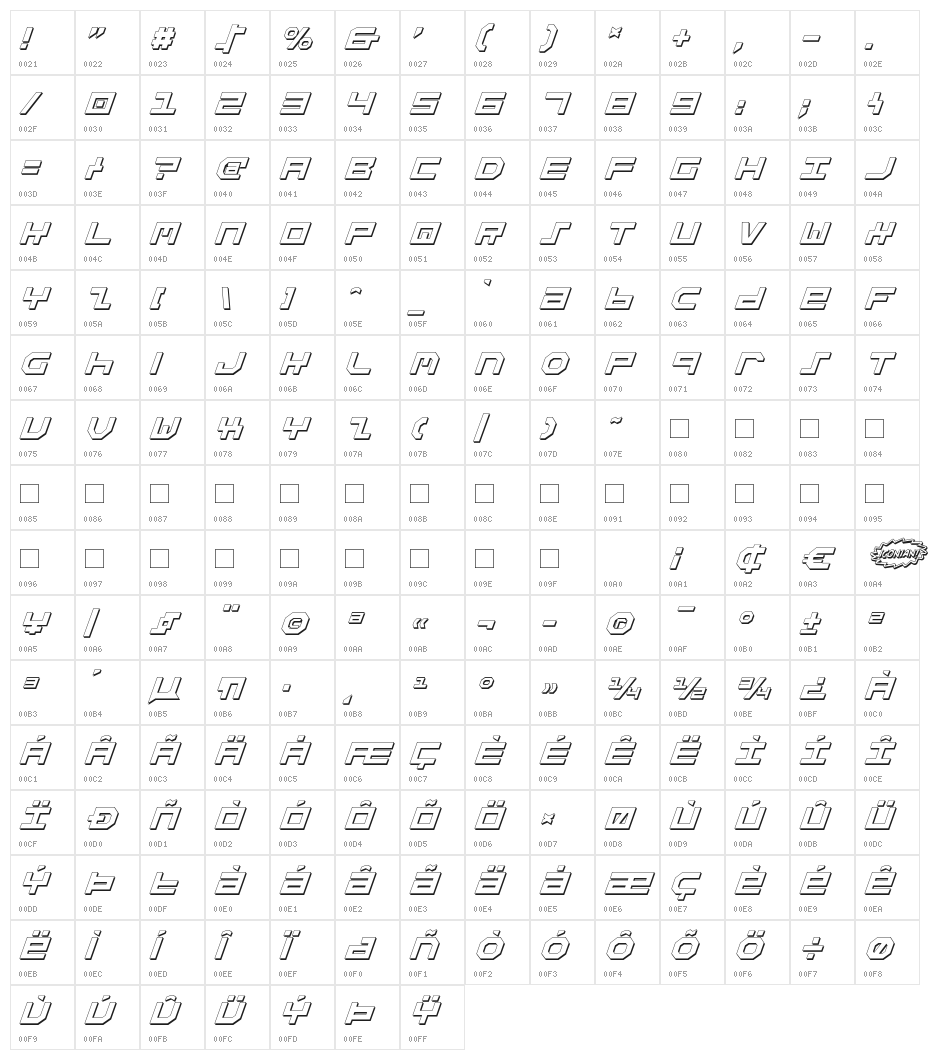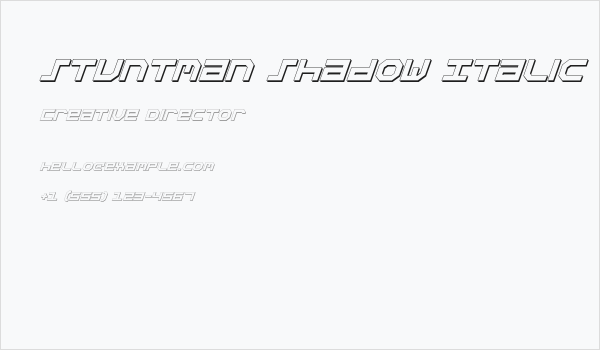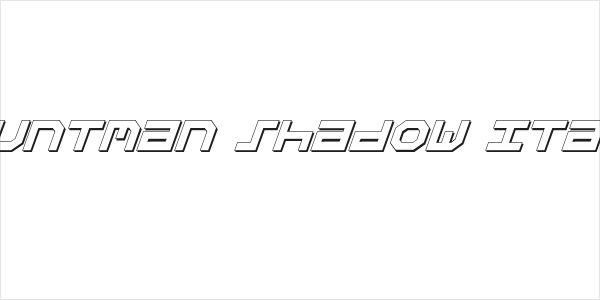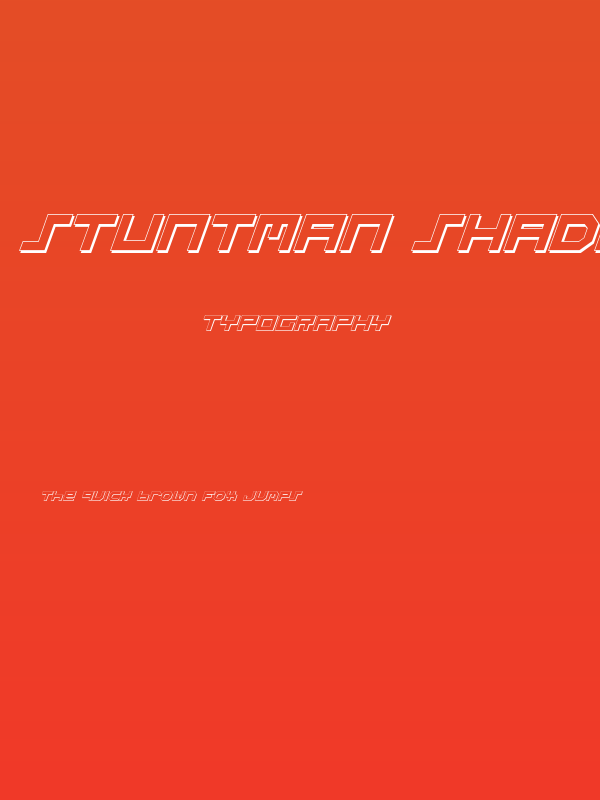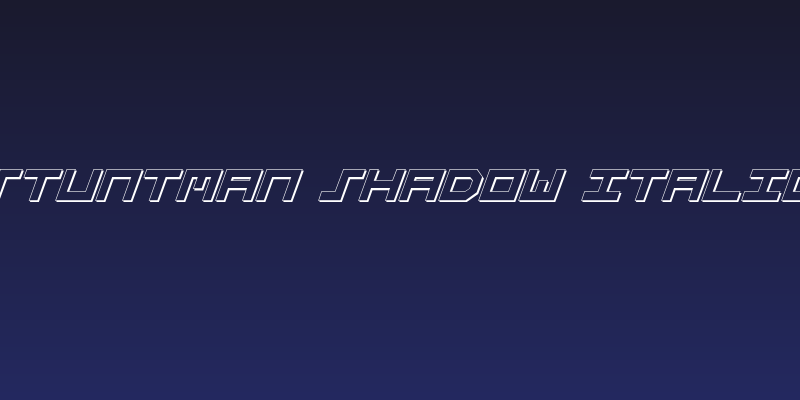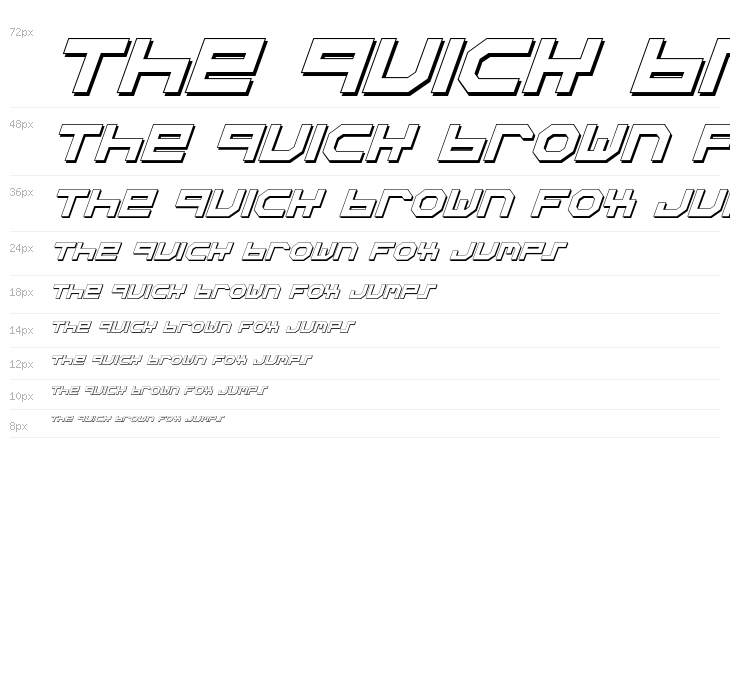
Stuntman Shadow Italic Font
Stuntman Shadow Italic Description
This font features a bold, dynamic design with a shadow effect that gives it a three-dimensional appearance. The characters are italicized, adding a sense of motion and energy. The geometric shapes and sharp angles contribute to a modern and futuristic look. The uppercase and lowercase letters maintain a consistent style, with the shadow creating depth and a standout effect. The numbers and special characters are equally bold and follow the same design principles, ensuring uniformity across all glyphs. This font is ideal for projects that require a strong visual impact and a contemporary aesthetic.
| Proposed Projects | Ideal for branding, posters, video game titles, and any project needing a futuristic and bold look. |